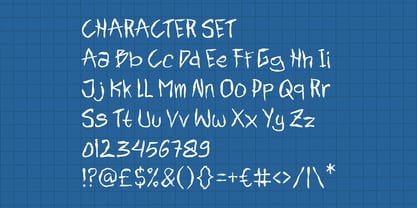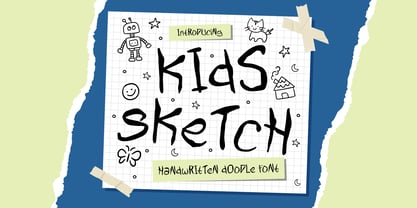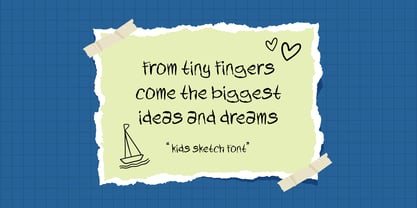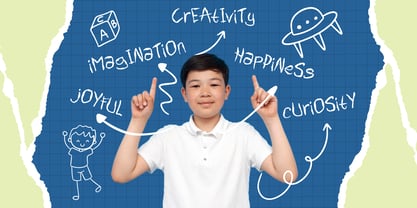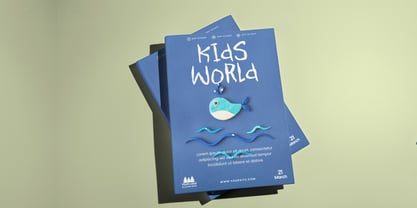
Kids Sketch
by Shanaf
The Kids Sketch Font Family was designed by Yesie Erma Yunita and published by Shanaf. Kids Sketch contains 1 styles. More about this family
Kids Sketch is a cheerful handwritten doodle font that brings childhood imagination to life. The letters are quirky, hand-drawn, and full of movement—each one mimicking the uneven, spontaneous strokes of a child’s sketchbook. The mix of tall, wobbly characters and irregular baselines adds an authentic, scribbled charm. Paired with adorable doodles like stars, cats, and robots, this font instantly brings a playful and whimsical tone to any design.
This font is perfect for creative projects aimed at children or playful themes. It fits right in on kids’ book covers, fun packaging, school posters, birthday invitations, or toy branding. The natural feel makes it ideal for crafts, DIY designs, and classroom visuals. Whether you’re making a back-to-school campaign, a YouTube thumbnail for kids, or playful stickers, Kids Sketch helps your words feel lively, friendly, and full of imagination.